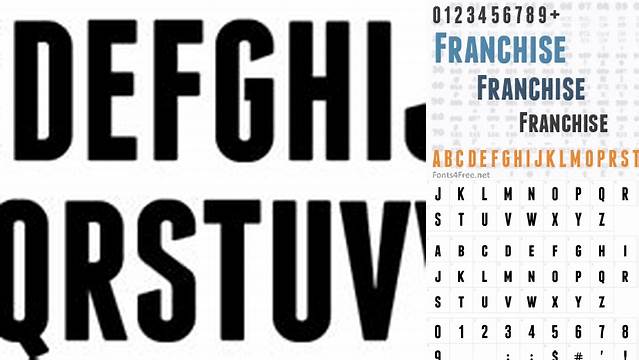
Hey guys! Are you looking to download the Franchise Bold Font for free? You've landed in the right spot. This article is your ultimate guide to finding, downloading, and using this striking font. We’ll dive deep into everything you need to know, from its unique characteristics to the best ways to incorporate it into your projects. Whether you’re a seasoned designer or just starting, this guide will equip you with the knowledge to make the most of the Franchise Bold Font. So, let's jump right in and explore the world of Franchise Bold!
1. Understanding the Appeal of Franchise Bold Font
Franchise Bold isn't just another typeface; it’s a statement. Its appeal lies in its strong, assertive character, making it a go-to choice for projects that need to grab attention. The distinct, condensed design lends itself well to headlines, logos, and any visual element that requires a powerful, impactful presence. Think about the times you’ve seen a design that just popped, chances are, a bold font like Franchise Bold played a crucial role. Understanding its appeal is the first step in harnessing its potential. It's about recognizing the situations where its inherent strength can elevate your message and create a lasting impression. From posters to websites, the versatility of Franchise Bold shines through, making it a valuable asset in any designer’s toolkit. When you’re trying to convey confidence and modernity, this font is definitely one to consider.
2. Key Features and Characteristics of Franchise Bold
Let's break down what makes Franchise Bold so special. One of its defining features is its condensed form. This means the letters are narrower than your average font, allowing you to pack more punch into a limited space. Think of it as a space-saving superhero for your designs! Another key characteristic is its bold weight, which gives it a strong, commanding presence. It’s not a font that fades into the background; it demands attention. The clean, geometric lines add a touch of modernity and sophistication, making it suitable for a wide range of applications. Whether you're designing a website header or a promotional poster, the distinctive features of Franchise Bold ensure your message is delivered with impact. Its visual clarity and readability, even at smaller sizes, further enhance its usability, making it a versatile choice for various design needs.
6. Using Franchise Bold in Graphic Design Projects
So, you've got Franchise Bold installed – awesome! Now, let's talk about how to use it effectively in your graphic design projects. This font shines when used for headlines, logos, and other prominent text elements. Its bold nature helps your message jump off the page (or screen!). Think about using it for posters, flyers, and website headers. However, because it's a condensed font, it's best to avoid using it for long paragraphs of text, as it can become difficult to read. Pair it with a simpler, more legible font for body text to create a balanced design. Experiment with different sizes and weights to see what works best for your specific project. Franchise Bold is a versatile tool, and with a bit of creativity, you can make it a star player in your design arsenal.
7. Pairing Franchise Bold with Other Fonts
One of the keys to great design is font pairing – finding the perfect partner for Franchise Bold. Since it’s a strong, bold font, you’ll want to pair it with something that complements it without overpowering it. Think about using a clean, sans-serif font like Open Sans or Roboto for body text. These fonts provide a nice contrast and ensure readability. For a more subtle contrast, you could also try a lighter weight of a geometric sans-serif like Montserrat. The goal is to create a visual hierarchy, where Franchise Bold grabs attention and the body text is easy to read. Experimenting with different combinations is key, but these pairings are a great starting point. Remember, the right font pairing can elevate your design from good to great!
8. Franchise Bold for Logos and Branding
Franchise Bold is a fantastic choice for logos and branding because of its strong, memorable presence. A logo is the face of your brand, and you want it to make a statement. The bold, condensed nature of this font lends itself well to creating logos that stand out and convey a sense of confidence and professionalism. Many companies use bold fonts in their logos to project strength and stability, and Franchise Bold fits the bill perfectly. Consider using it for your company name or a key tagline. Its unique character ensures your brand will be instantly recognizable. When used effectively in branding, Franchise Bold can help create a cohesive and impactful visual identity that resonates with your target audience.
30. The Importance of Choosing the Right Font for Your Project
Ultimately, choosing the right font is crucial for the success of your project. Typography is a powerful tool that can significantly impact the effectiveness of your message. The right font enhances readability, conveys the right tone, and reinforces your brand identity. Franchise Bold is a fantastic option for projects that require a bold and modern look, but it’s essential to consider your specific needs and goals. Experiment with different fonts and pairings to find the perfect fit. A well-chosen font elevates your design and communicates your message with clarity and impact. Investing time in selecting the right font is an investment in the overall success of your project.